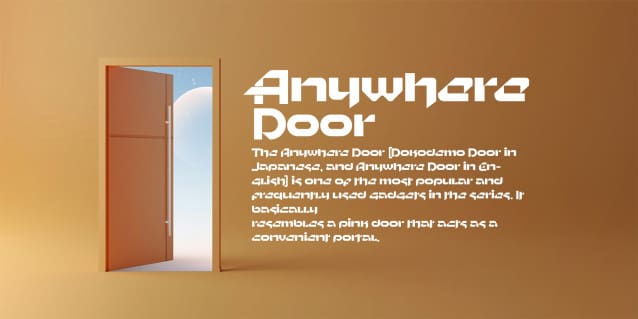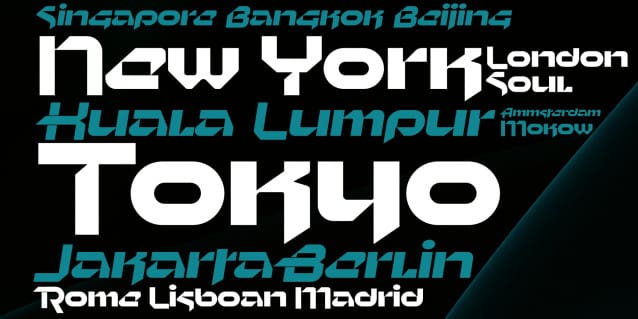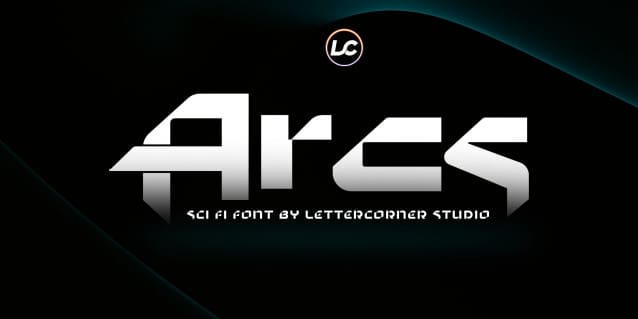
Arcs Futuristic Font
Arcs Futuristic Font is a futuristic modern font that features upper & lowercase characters, multilingual, numbers & punctuation. It’s well suited for use in the tech & gaming space for logos, titles, packaging, web design, apps & much more.